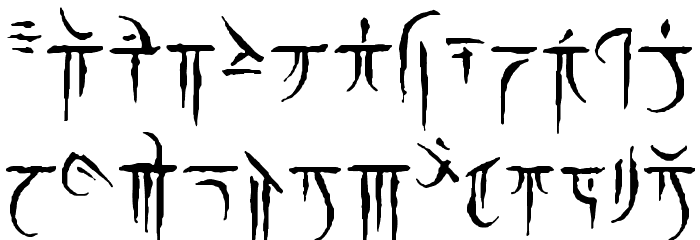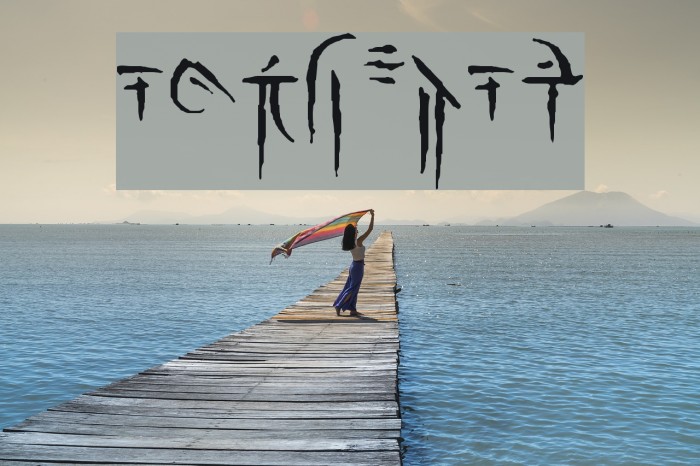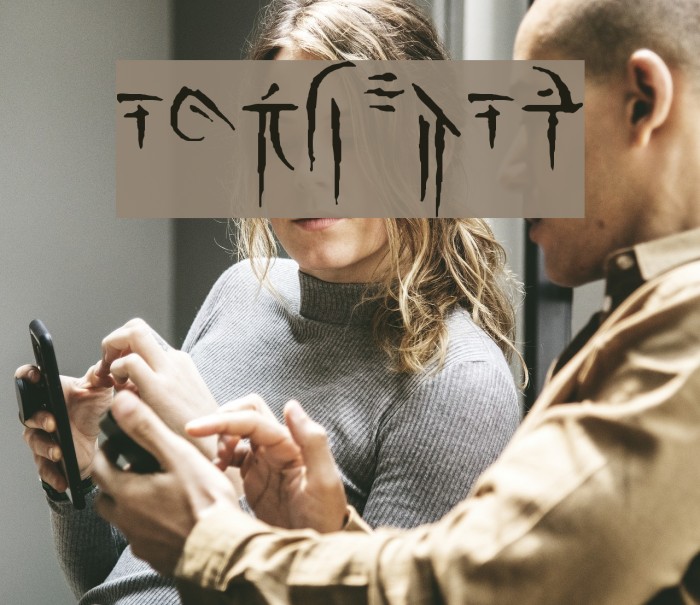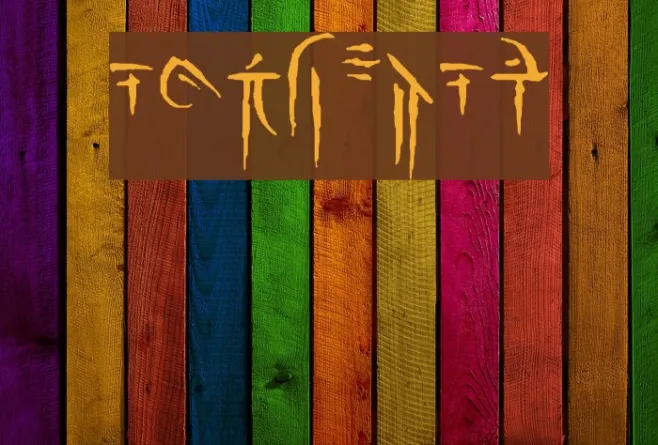
Iokharic Font
This font features a unique, mystical design that resembles ancient runic or draconic scripts. The characters are elongated with sharp, pointed edges and intricate curves, giving it an otherworldly appearance. The strokes vary in thickness, adding a dynamic and somewhat aggressive feel to the text. This font is highly decorative, making it suitable for fantasy-themed projects or designs that require a touch of mystery and magic. The overall style is reminiscent of ancient scripts, perfect for creating a sense of history or legend.
A mystical, runic-style font with sharp, elongated characters.
- Proposed Projects: Ideal for fantasy book covers, game design, or any project needing a magical or ancient aesthetic.
- Overall Style: Mystical, Ancient, Decorative
- Use Case: Logos, Titles, Fantasy Themes